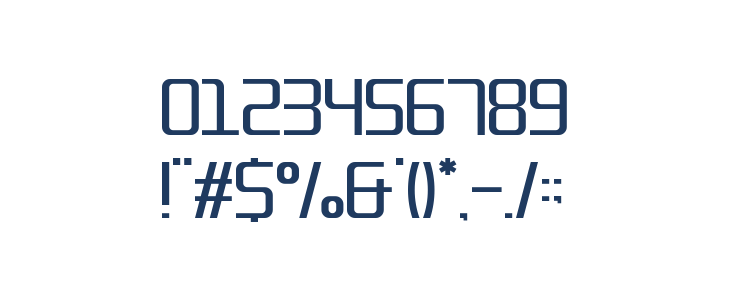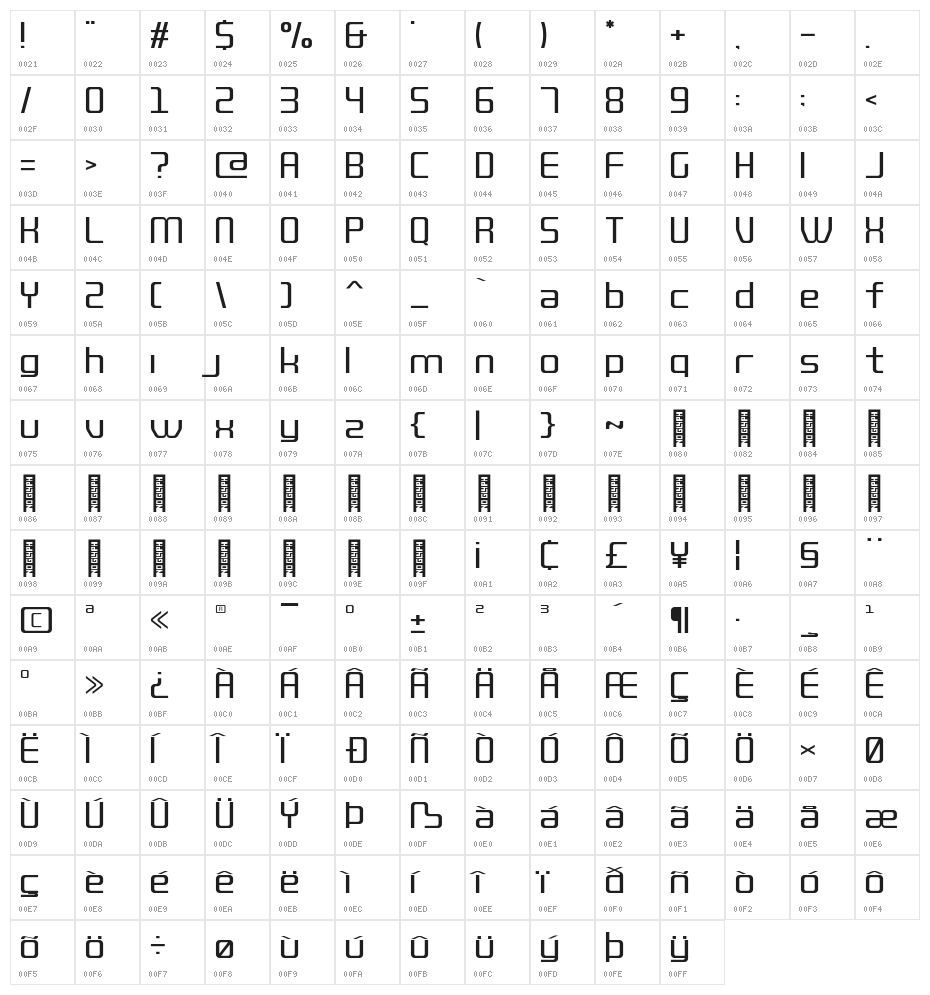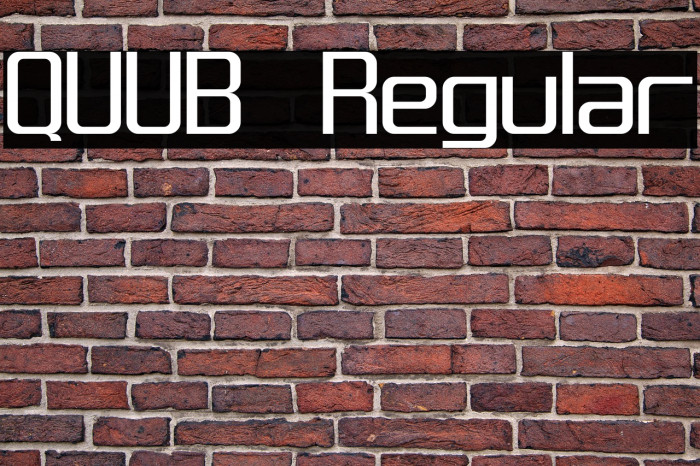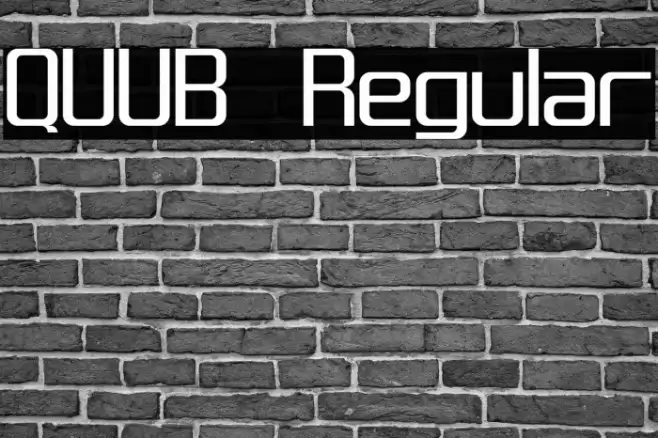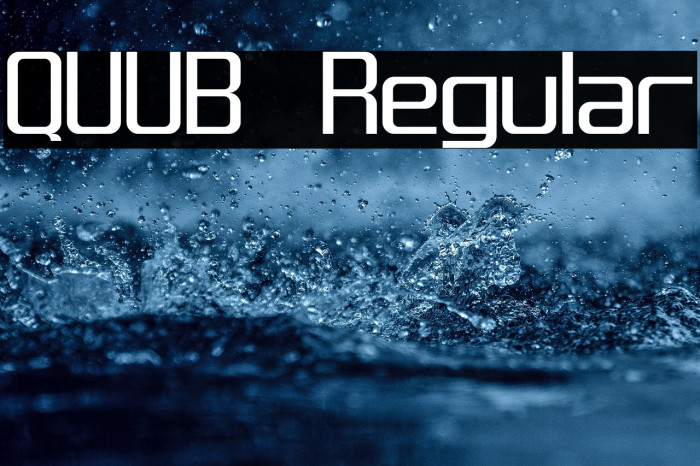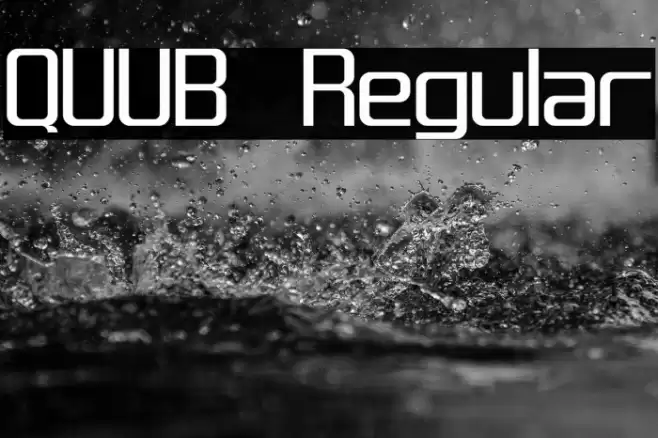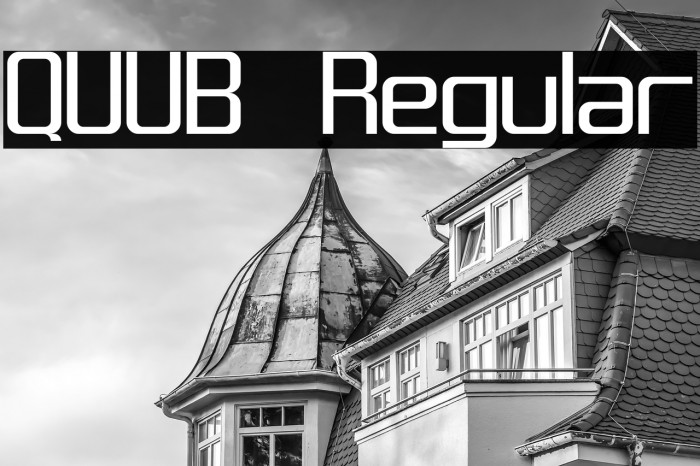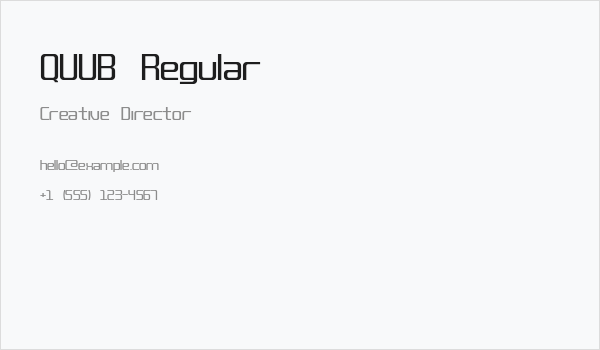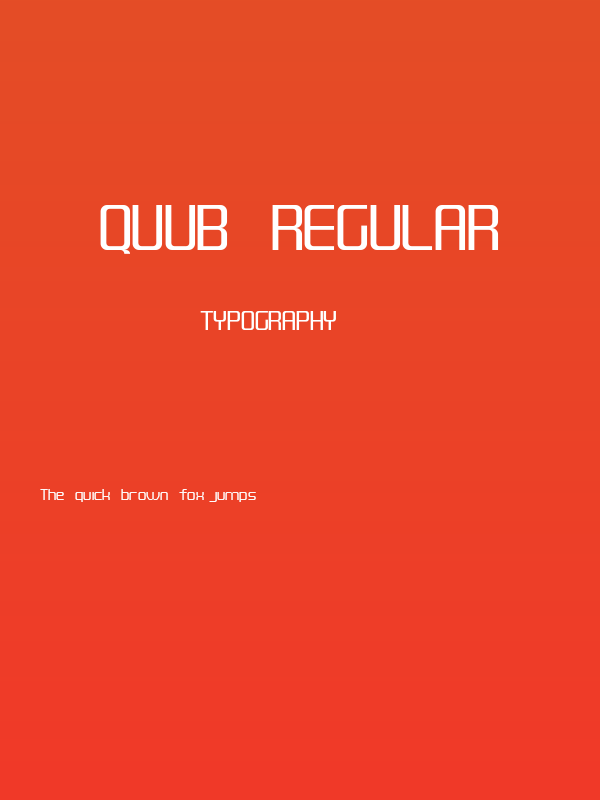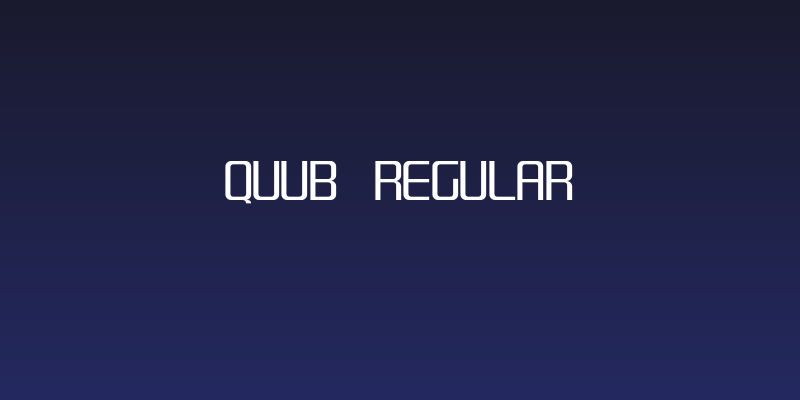
QUUB Regular Font
QUUB Regular Description
This font features a modern, geometric design with a distinct square-like structure. The characters are uniform in height, creating a cohesive and balanced appearance. The uppercase letters are bold and assertive, while the lowercase letters maintain a similar geometric style, offering a seamless transition between cases. The numerals are clear and easy to read, matching the overall aesthetic. Special characters are designed with the same attention to detail, ensuring consistency across all glyphs. This font's clean lines and structured form make it suitable for a variety of design applications.
| Use Case | Headlines, Logos, Digital Interfaces |
| Proposed Projects | Ideal for tech branding, digital interfaces, signage, and modern editorial design. |